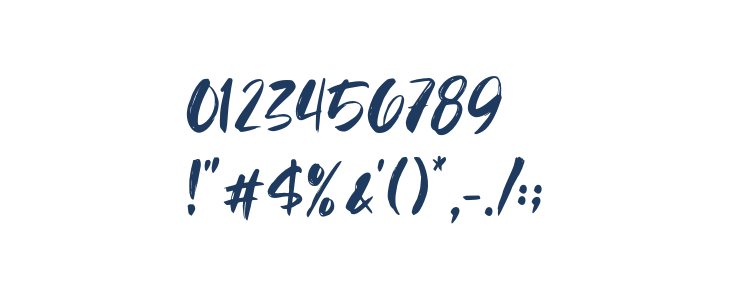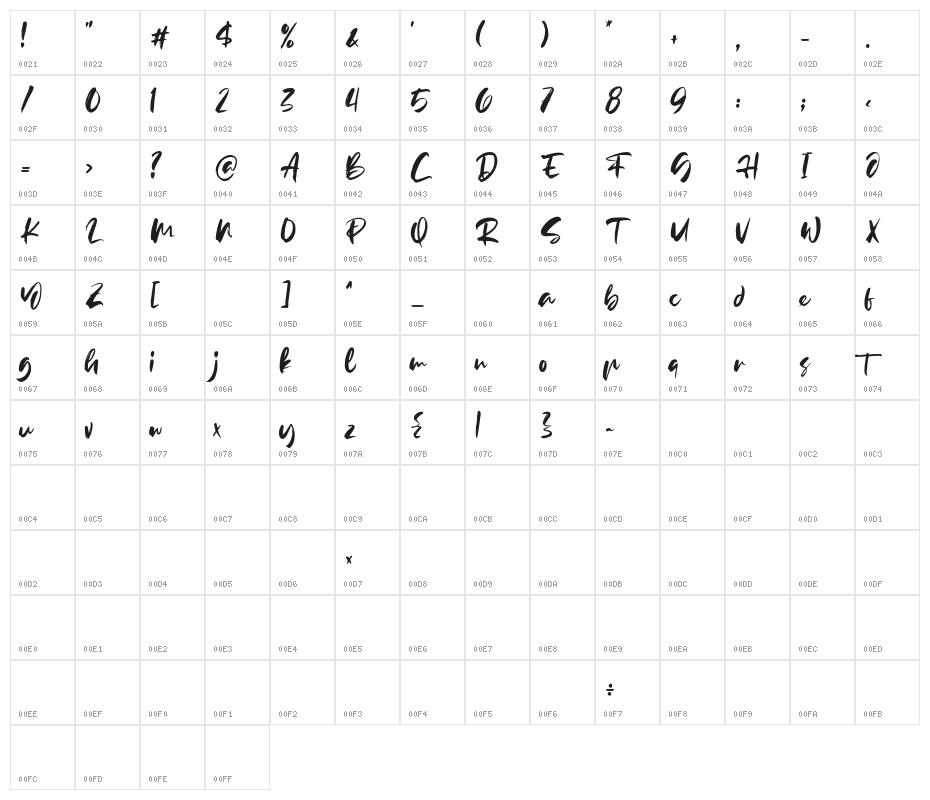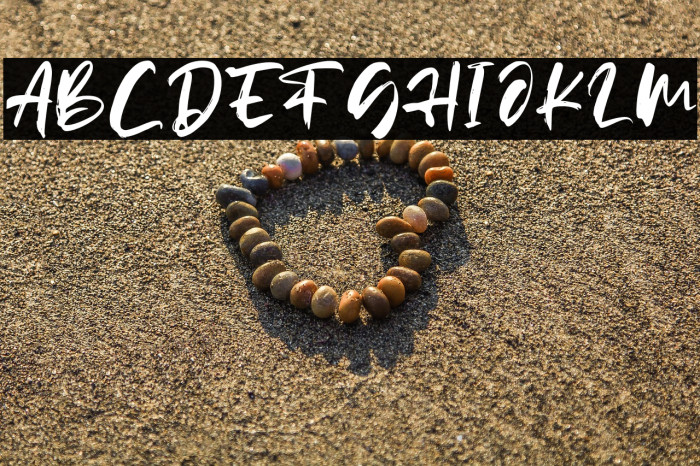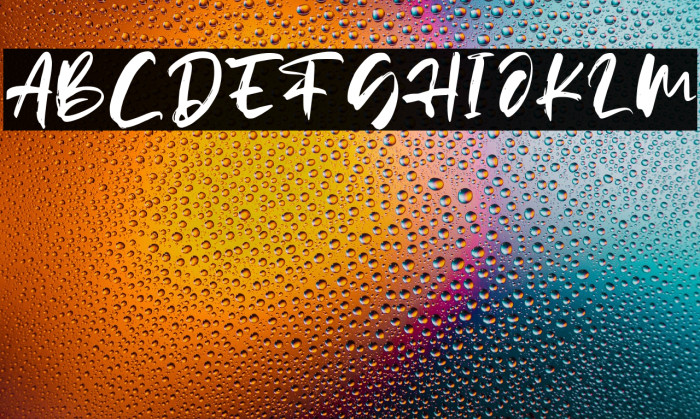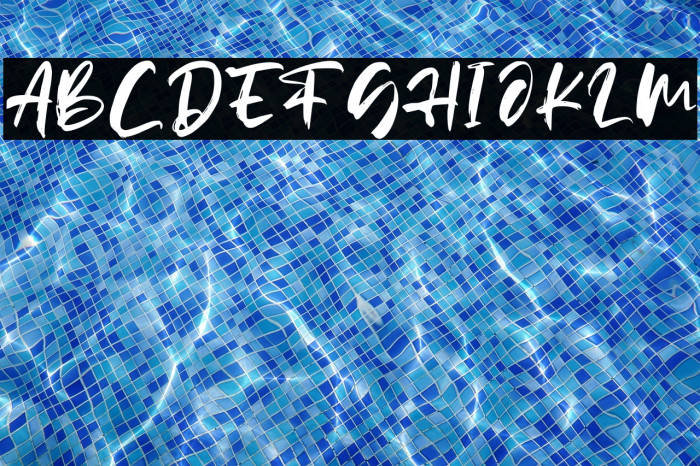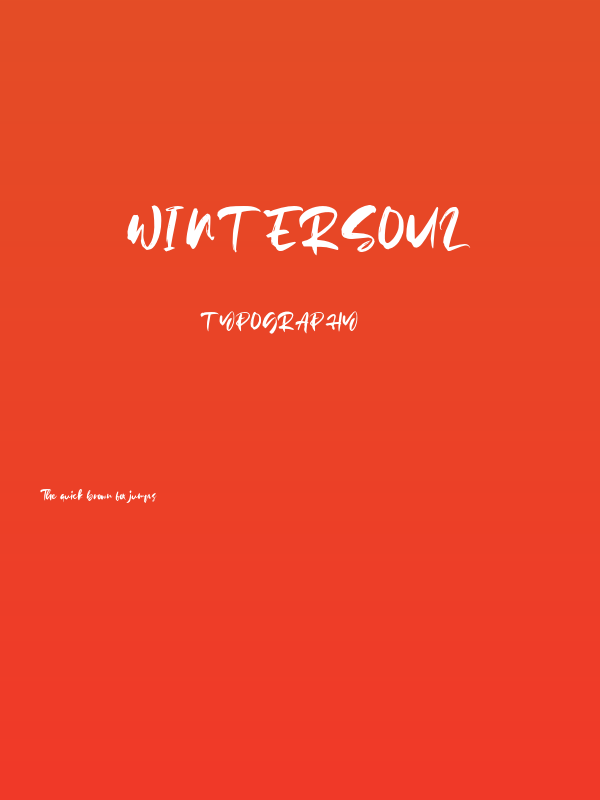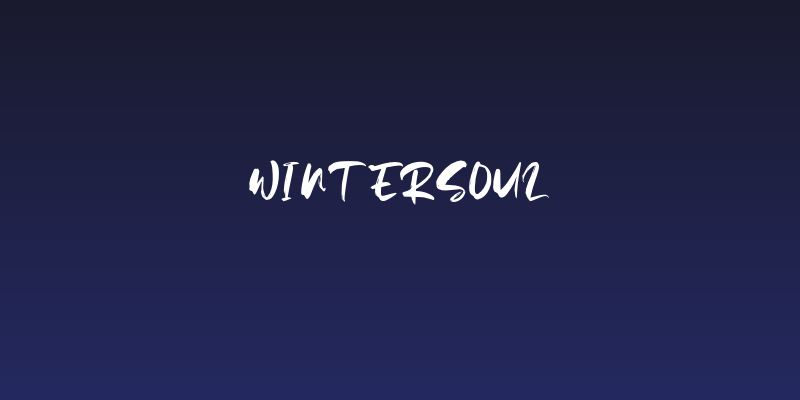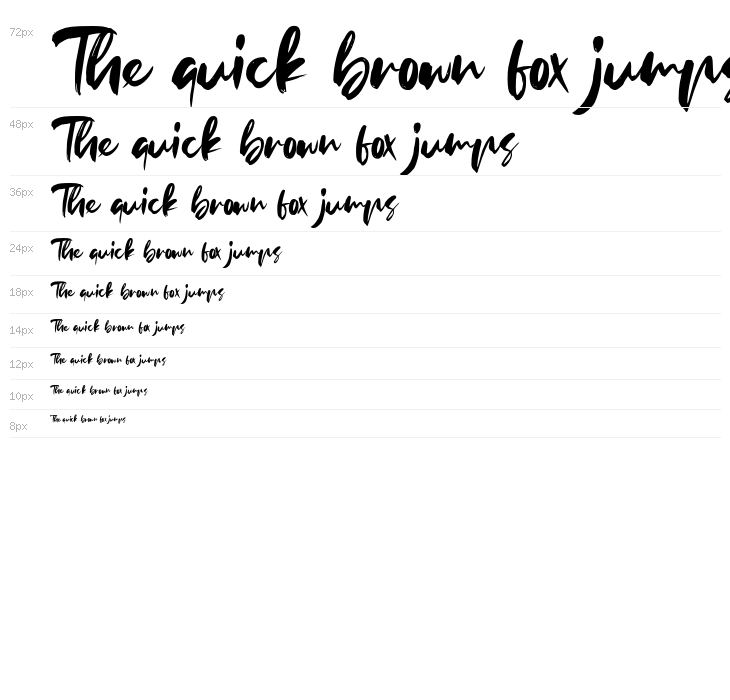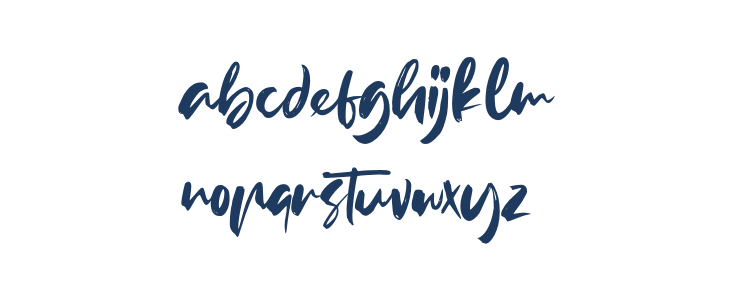
Wintersoul Font
Wintersoul Description
This font features a bold and expressive handwritten style, characterized by its dynamic brush strokes and fluid motion. The letters have a natural flow, with varying thickness that adds a sense of movement and energy. The uppercase and lowercase letters maintain a consistent style, with some letters exhibiting unique flourishes that enhance the overall aesthetic. The numerals and special characters are crafted with the same attention to detail, ensuring a cohesive look across all elements. This font is perfect for projects that require a personal touch or a creative flair.